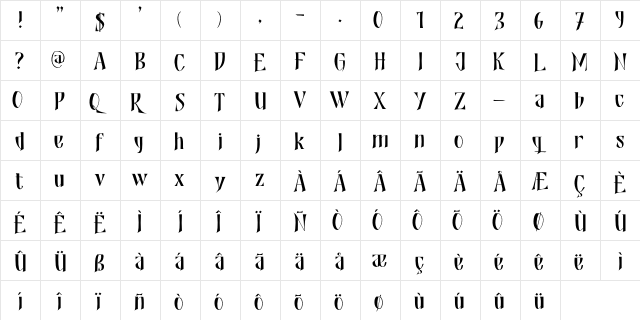
Shadowfield DEMO Regular
| Foundry | David Kerkhoff |
| Designer | David Kerkhoff |
Design Context for Shadowfield DEMO Typeface
Shadowfield DEMO brings ornamental detail and strong personality to headlines and identities, where visual impact matters more than quiet functionality.
Font Pairing: Pair with a clean neutral sans-serif for body copy to let Shadowfield DEMO's character lead without overwhelming the composition.
Pro Tip: Use Shadowfield DEMO exclusively at display sizes — it was designed to be seen, not read at length. Let a neutral companion handle body copy.